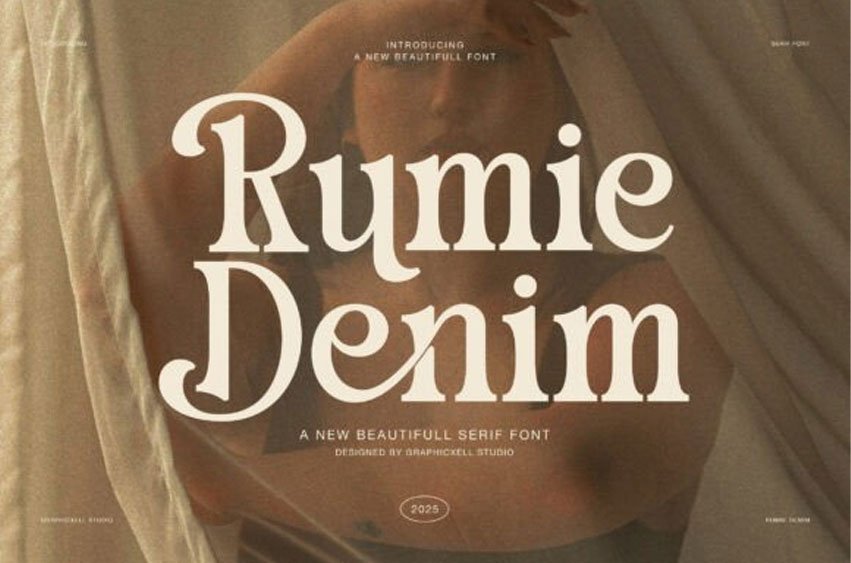
Rumie Denim Font is an elegant serif font created to express calm beauty, balance, and refined clarity. Inspired by editorial typography and natural forms, Rumie Denim blends classic serif structure with soft curves and gentle contrast. As a result, it delivers a timeless look that feels modern, warm, and thoughtful.
Moreover, Rumie Denim features carefully crafted letterforms that feel smooth and organic. Because of this, headlines appear confident while still remaining approachable. At the same time, the font maintains strong readability, which allows it to work well across both print and digital layouts. Therefore, designers can use Rumie Denim for storytelling without visual tension.